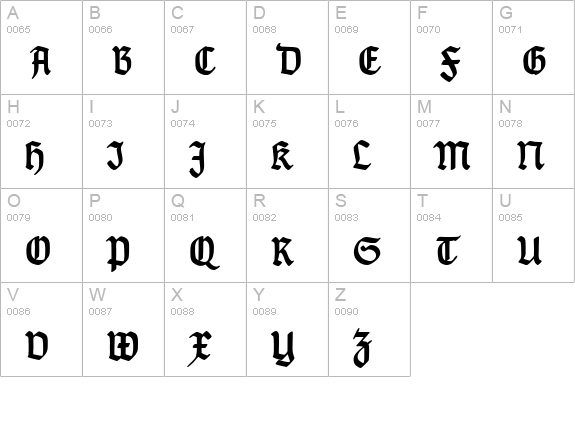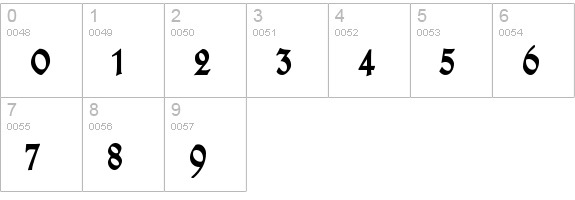
TypographerGotisch Schmal Bold is a strong, high-contrast variant in the TypographerGotisch typeface family \xE2\x80\x94 well suited to headlines, attention-grabbing titles, and strong calls-to-action.
TypographerGotisch Schmal Bold font embodies elegance and sophistication with its sleek and slender letterforms. This font is perfect for adding a touch of refinement to any design project, whether it be a logo, headline, or editorial layout. Its bold weight commands attention and creates a strong visual impact, making it ideal for projects that require a strong and confident aesthetic. The TypographerGotisch Schmal Bold font is characterized by its narrow and elongated letterforms, which exude a sense of elegance and modernity. Each letter is meticulously crafted with precision and attention to detail, resulting in a typeface that is both visually appealing and highly legible. One of the most impressive aspects of the TypographerGotisch Schmal Bold font is that it is available for free. Yes, you read that right - this stunning typeface can be downloaded without any cost! FontsMarket.com offers this font as a free download, allowing designers and creatives to access its beauty and versatility without breaking the bank. Whether you are a professional designer or a hobbyist, the TypographerGotisch Schmal Bold font is a valuable addition to your font library. Its unique and eye-catching design will captivate your audience and enhance the visual impact of your projects. Don't miss out on this opportunity to elevate your designs with this freely available font at FontsMarket.com.